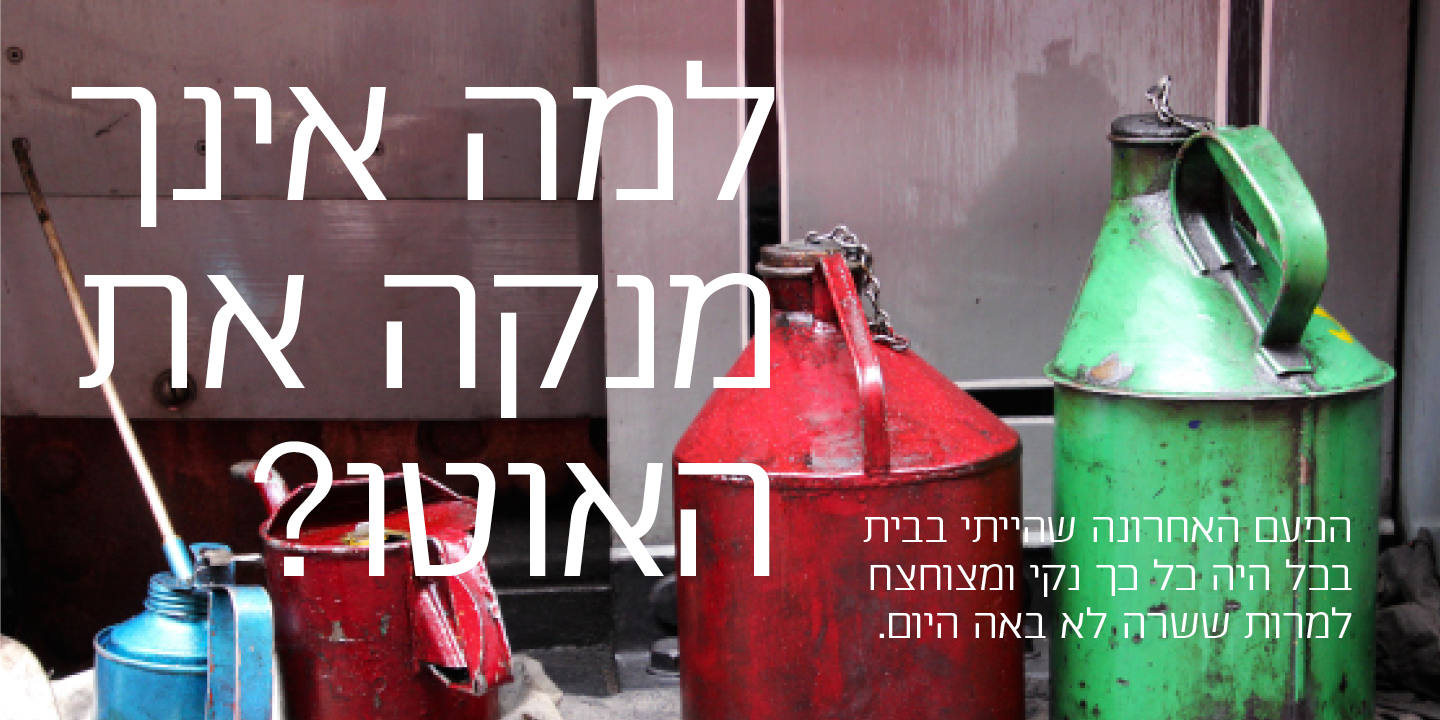
Aplikazia MF Font is a modern sans-serif typeface that combines digital functionality with contemporary design elements for versatile application interfaces. This font is available for commercial use and must be purchased for business applications. You can download it for free for testing purposes only.
Aplikazia MF Font excels in numerous design applications including mobile app interfaces, software branding, digital platforms, user interface design, tech company logos, web applications, digital dashboards, modern signage, contemporary packaging, and innovative marketing materials. Its digital character makes it perfect for organizations seeking cutting-edge functionality and modern technological appeal.
What makes Aplikazia MF Font so exciting is its perfect optimization for digital applications and screen readability, featuring clean letterforms, systematic spacing, and interface-focused styling that creates exceptional user experience while maintaining professional credibility across all devices. The font's digital aesthetic conveys innovation and efficiency, making it ideal for technology companies seeking to establish modern positioning and user-centered design excellence.
The Aplikazia MF Font family includes comprehensive weight variations: Thin, Light, Regular, Medium, Bold, Black, and their corresponding italic versions, plus condensed options optimized for interface design. Each family member maintains consistent digital relationships while offering different levels of emphasis, providing designers with extensive typographic flexibility for systematic application development.
This exceptional typeface represents the perfect synthesis of user interface design principles and contemporary functionality, making Aplikazia MF Font Free Download an invaluable resource for digital designers. The font's application-focused characteristics work exceptionally well in technology environments where user experience, readability, and digital optimization are fundamental considerations.
Aplikazia MF Font supports extensive international character sets including Western European, Eastern European, and Cyrillic scripts, plus comprehensive technical symbols and interface elements. Its advanced OpenType features ensure optimal performance across digital platforms and multilingual application interfaces worldwide.
Professional designers choose Aplikazia MF Font for its reliability in digital interfaces, application design, and technology branding projects. The font's interface-optimized nature makes it particularly effective for software companies, app developers, digital agencies, and tech startups where user experience and digital functionality are essential considerations.
The font's digital sophistication and interface elegance make it particularly suitable for mobile app developers, software companies, tech corporations, digital platforms, and innovative startups. Its user-focused appeal ensures designs remain functional and engaging across evolving digital technology trends.